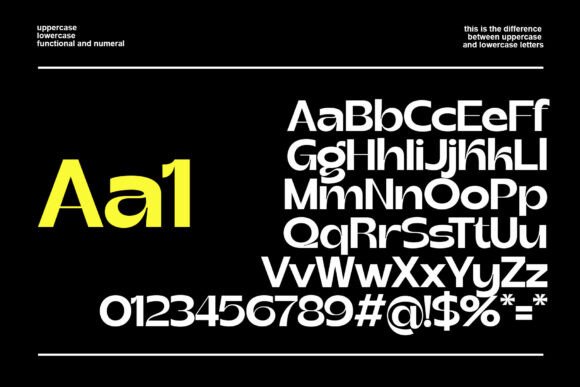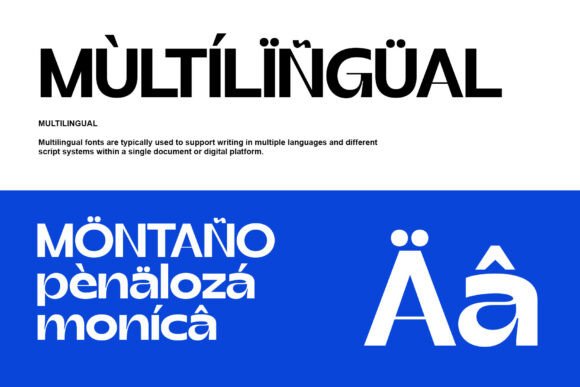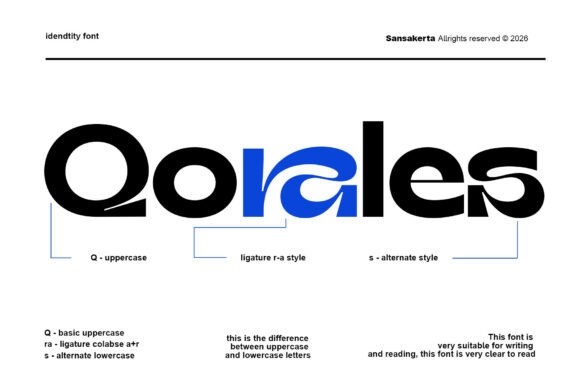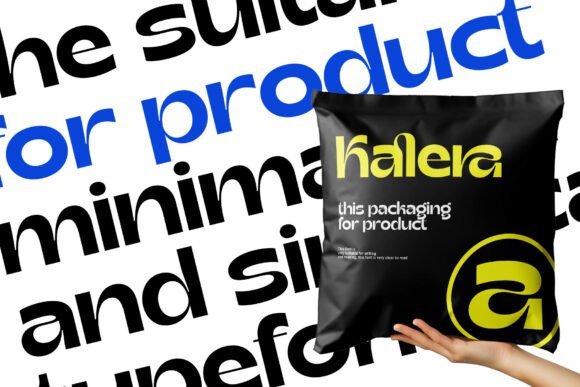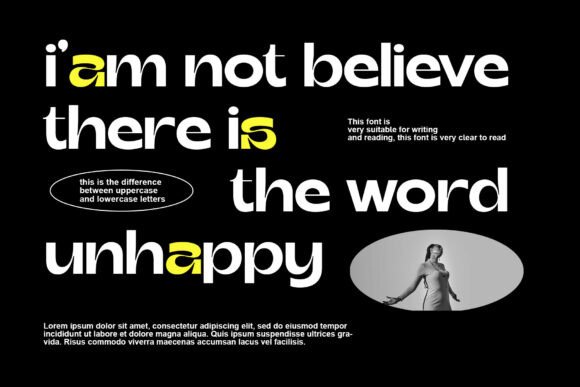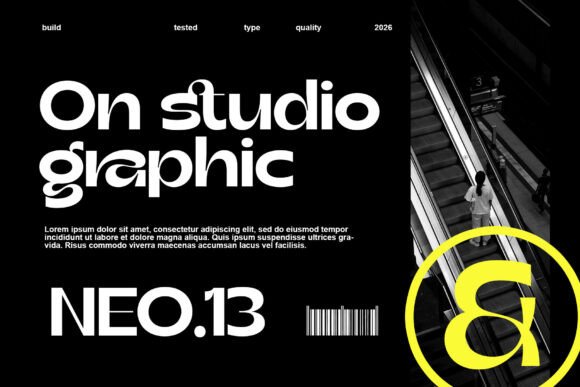
Introduction to Sirage Font Font
Fonts play a crucial role in design, and the Sirage Font font is a typeface that brings both character and versatility to any project. Whether you’re working on a branding project, a website, or a print design, the Sirage Font font offers a unique style that can elevate your work.
Sirage is a modern display sans serif font with a clean, bold, and experimental look.
Designed with unique alternate characters and stylish ligatures, this typeface delivers a strong visual identity while maintaining excellent readability Its smooth curves and contemporary shapes make it perfect for creative branding, editorial layouts, posters, social media graphics, packaging, website headers, modern typography projects, and visual identities.
Key Features of Sirage Font Font
Why Choose Sirage Font Font?
The Sirage Font font is more than just a typeface β it’s a design tool that helps you communicate your message with style and clarity. Its unique character set and versatile design make it suitable for a wide range of applications, from elegant invitations to bold headlines.
With its carefully crafted letterforms and balanced proportions, the Sirage Font font ensures readability and visual appeal across all mediums.
What makes Sirage Font font special?
The Sirage Font font stands out with its unique design, exceptional readability, and versatility across various design applications.